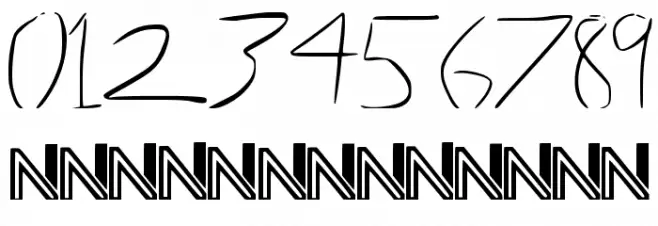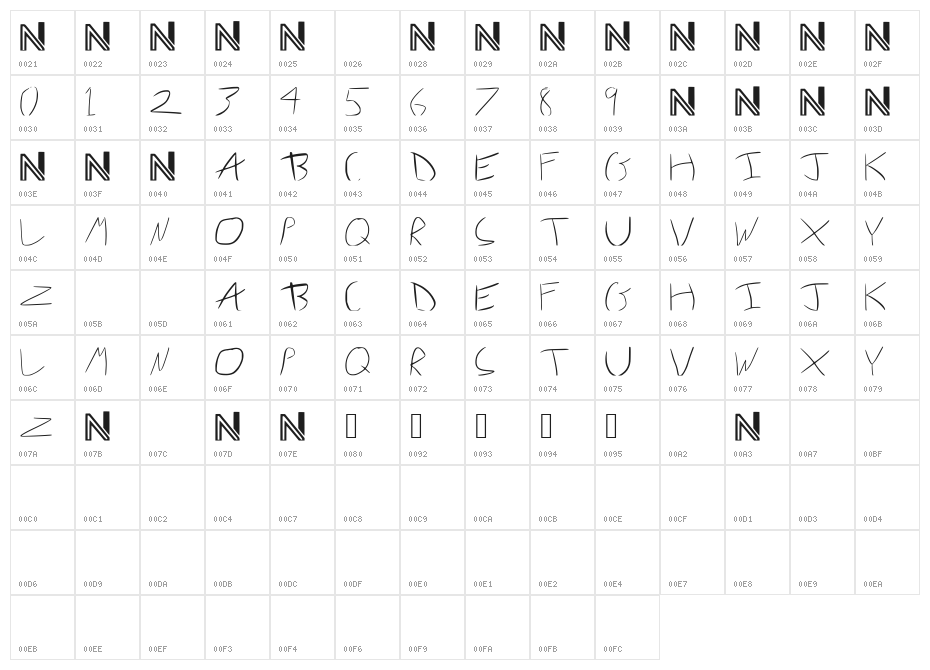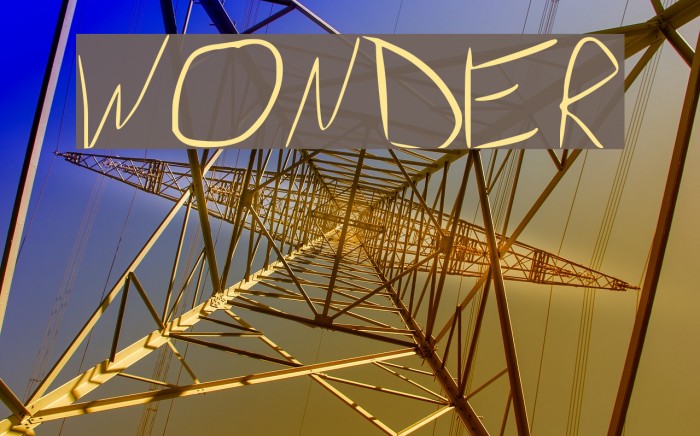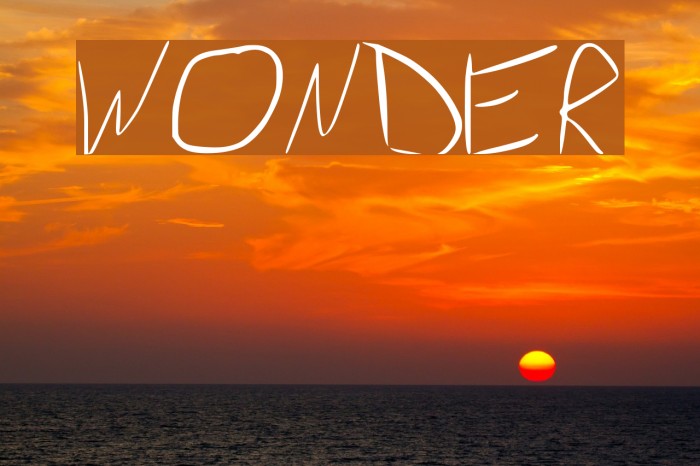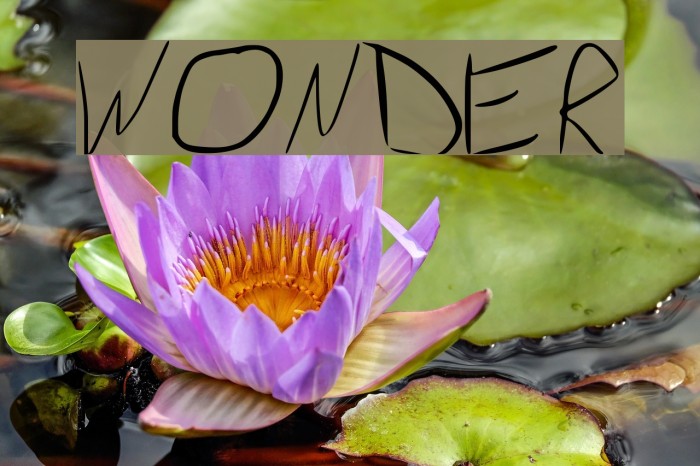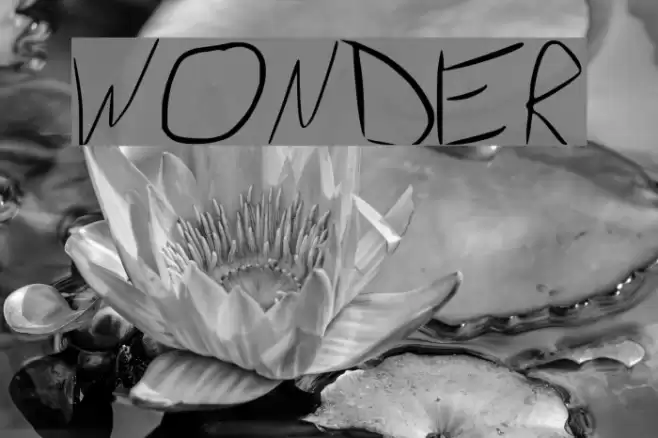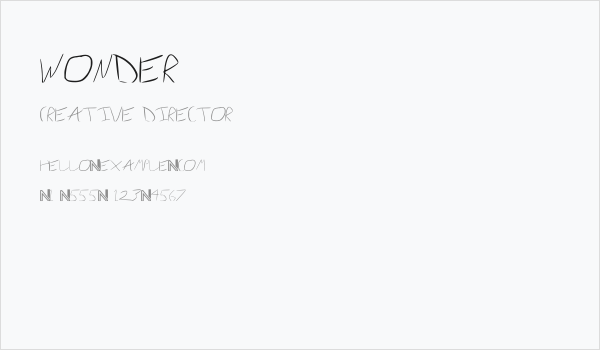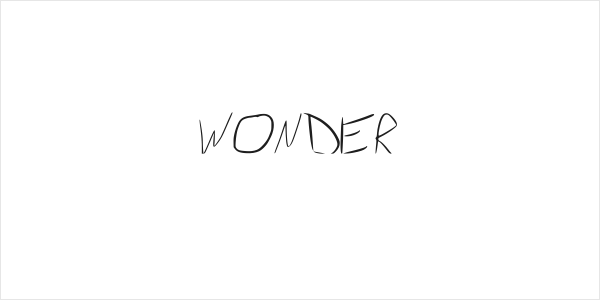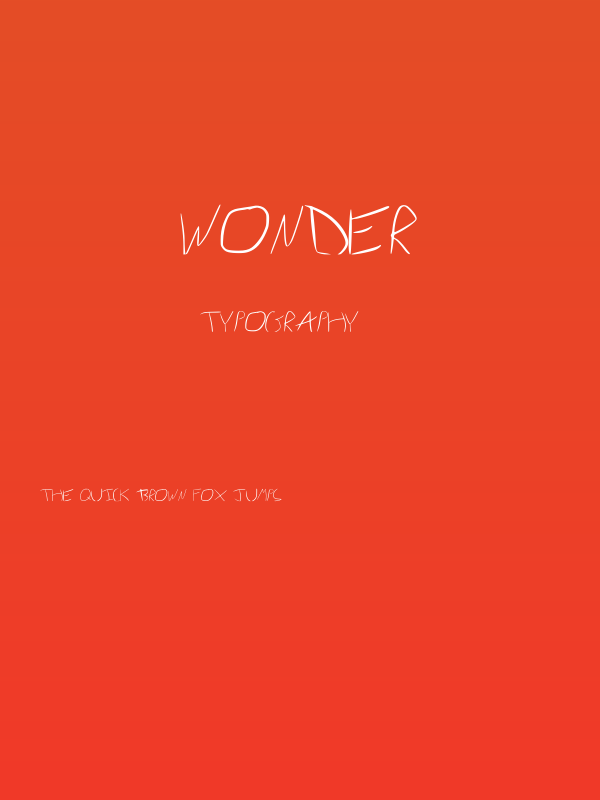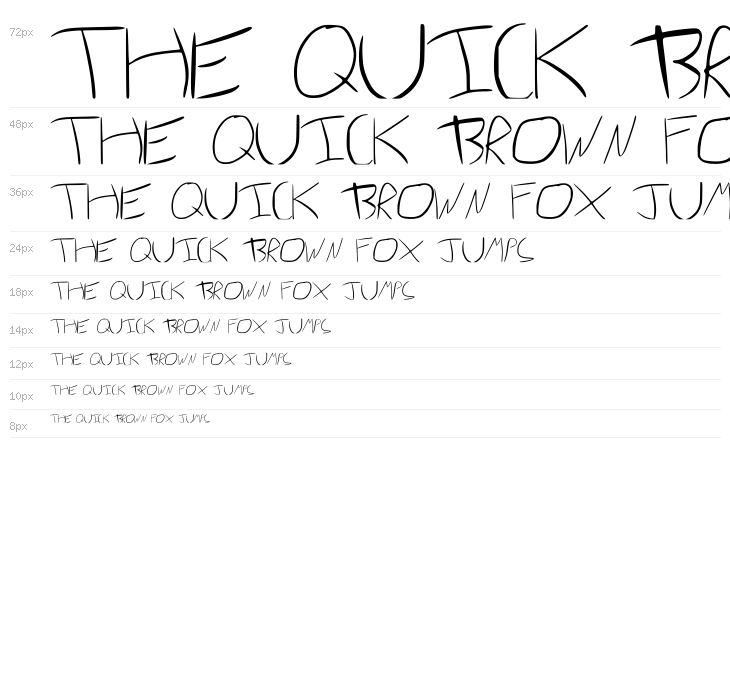
Wonder Font
Wonder Description
This font features a unique handwritten style with a playful and whimsical touch. The characters are slightly slanted, giving it a dynamic and energetic feel. The strokes are uneven, mimicking the natural flow of handwriting, which adds a personal and informal vibe. The uppercase and lowercase letters maintain a consistent style, with some characters having exaggerated loops and curves. The numbers follow the same playful design, making them stand out. Special characters are included, adding versatility to the font. Overall, this font exudes creativity and is perfect for projects that require a personal touch.
| Overall Style | Whimsical |
| Proposed Projects | Ideal for greeting cards, invitations, personal branding, and creative projects that require a personal touch. |